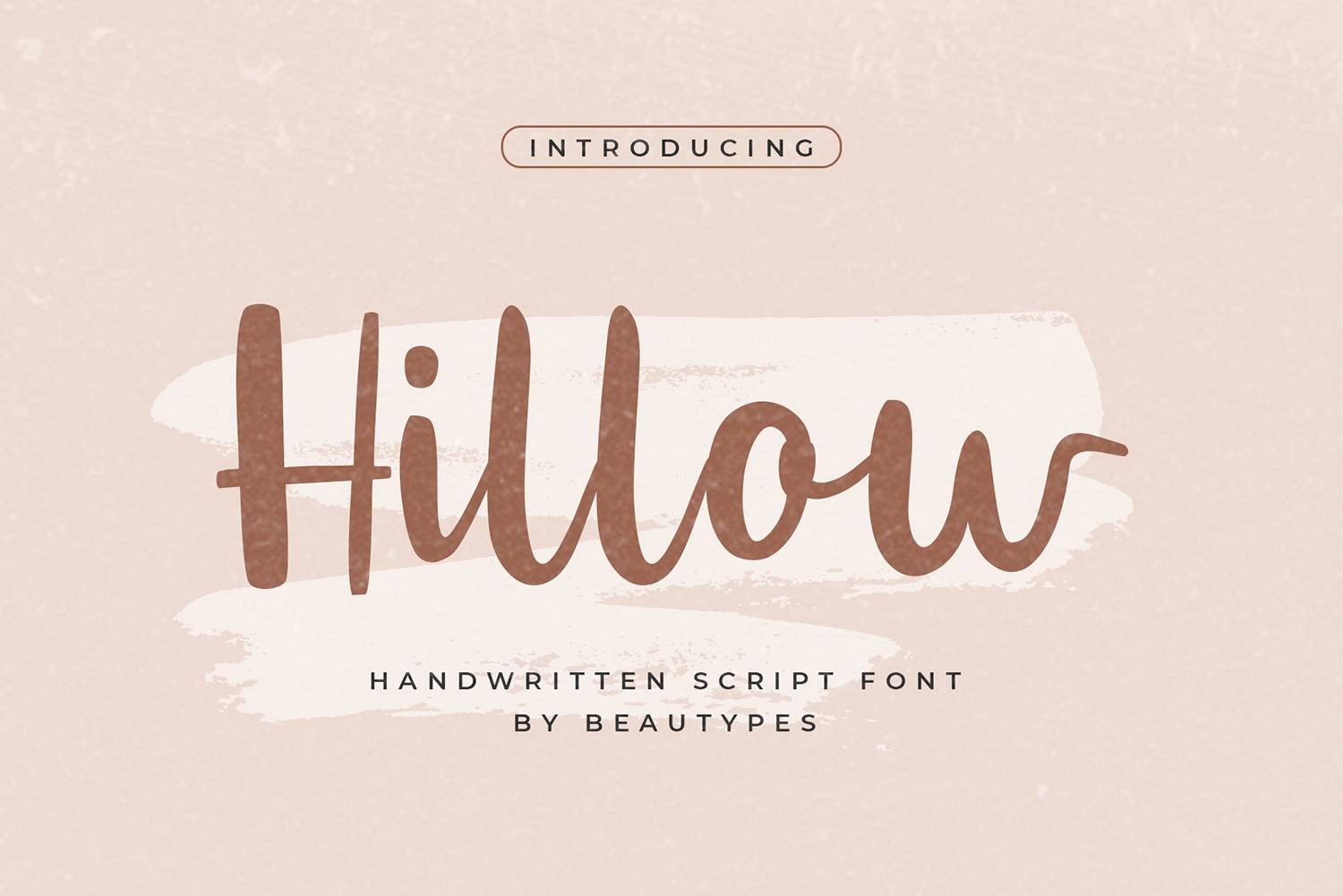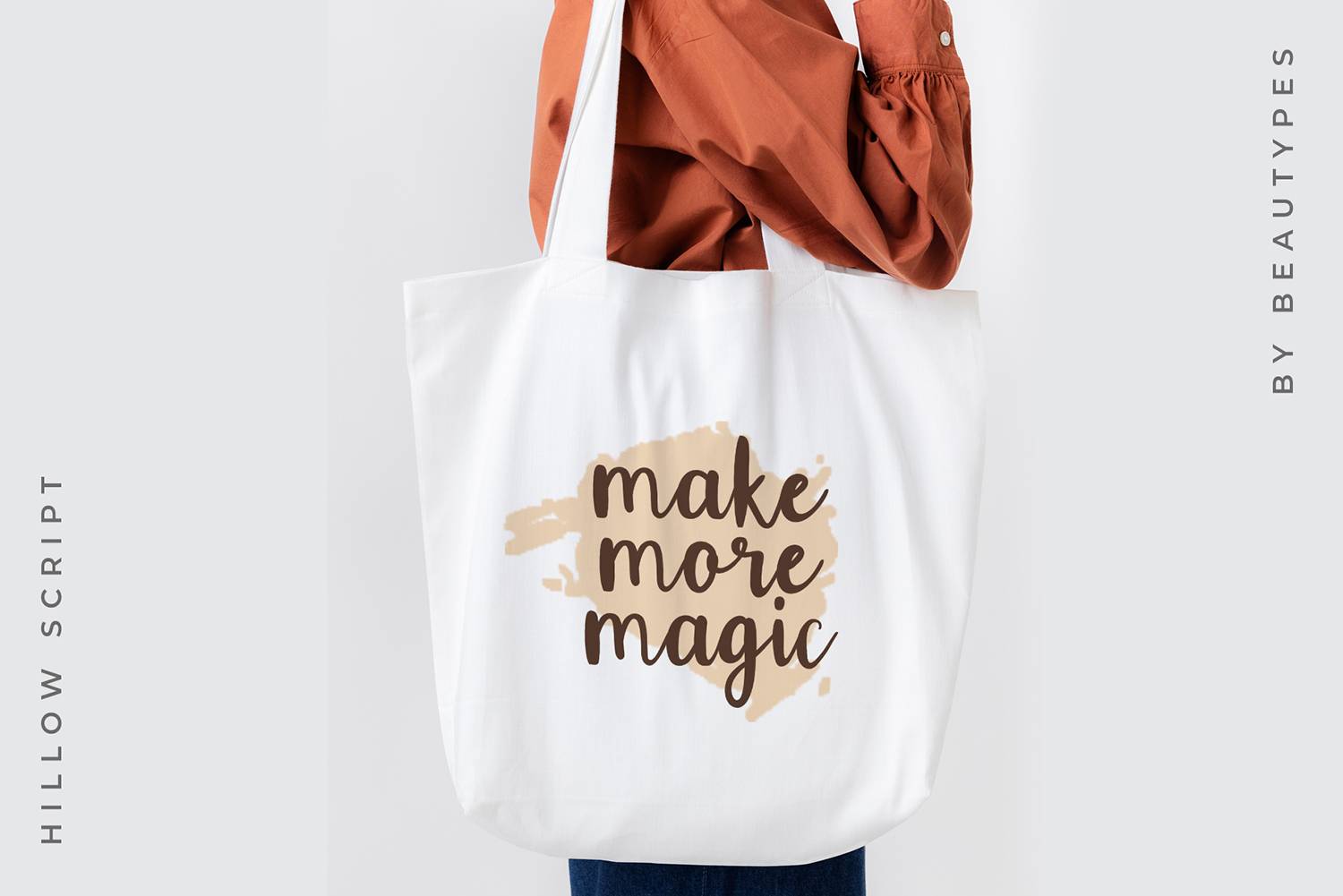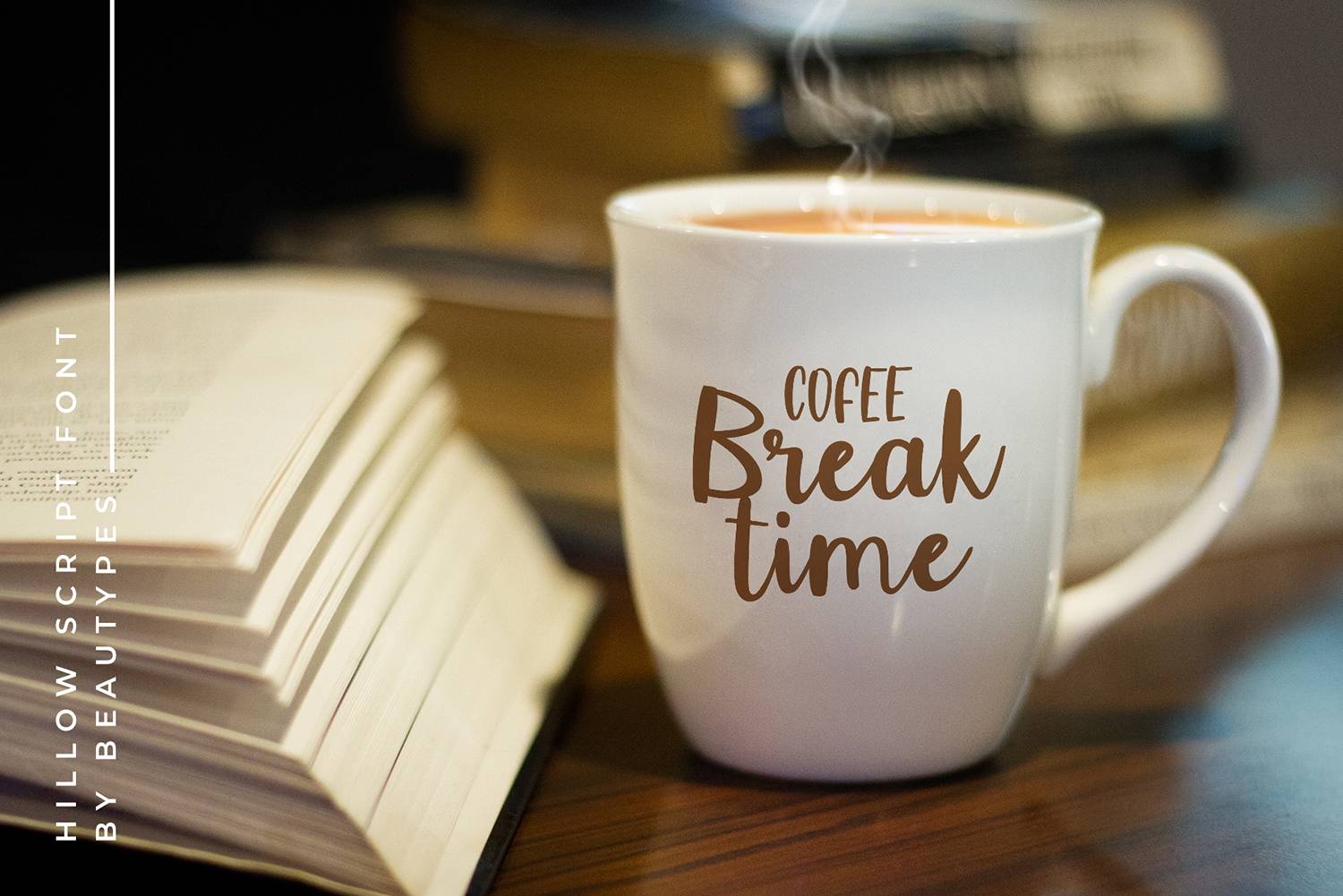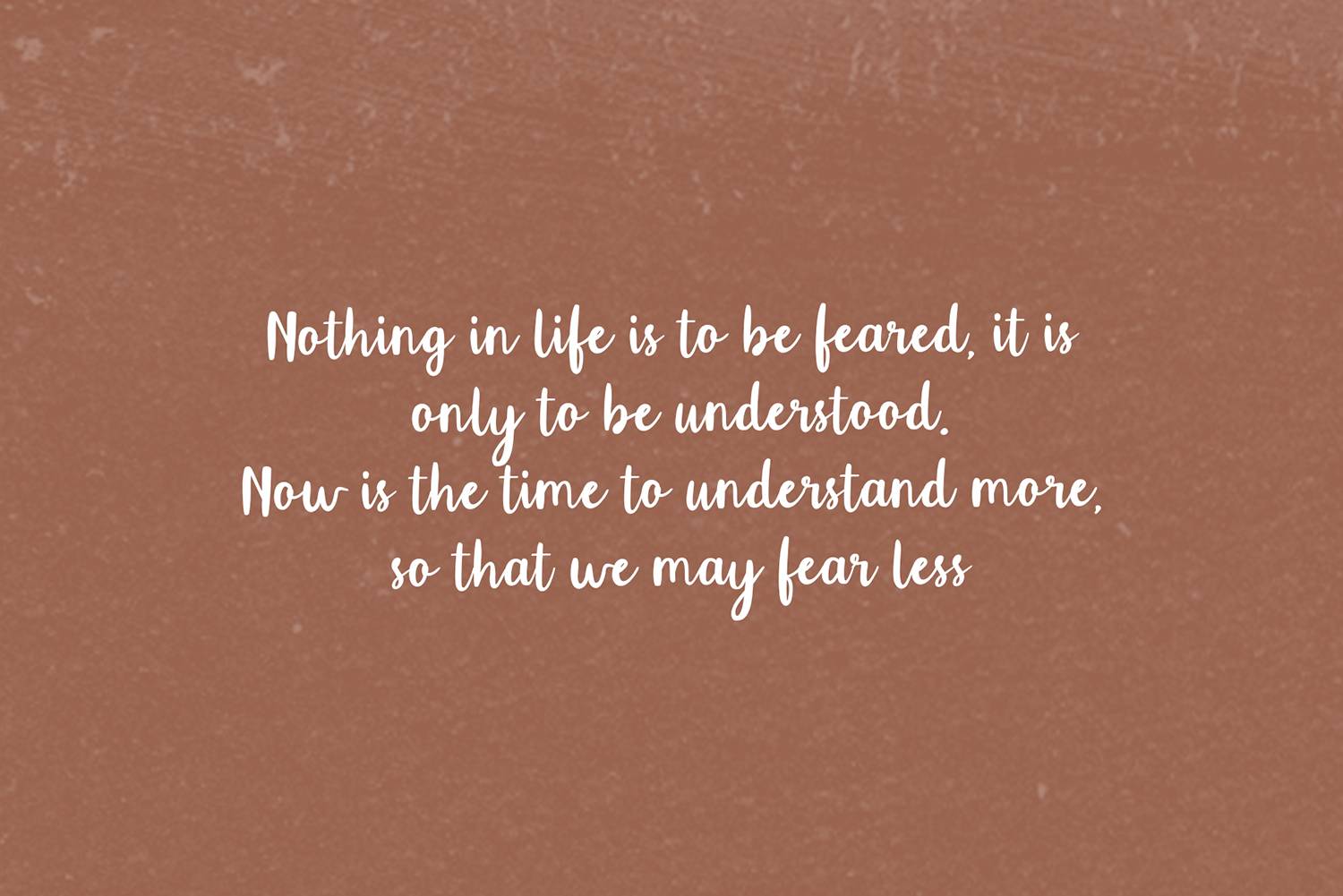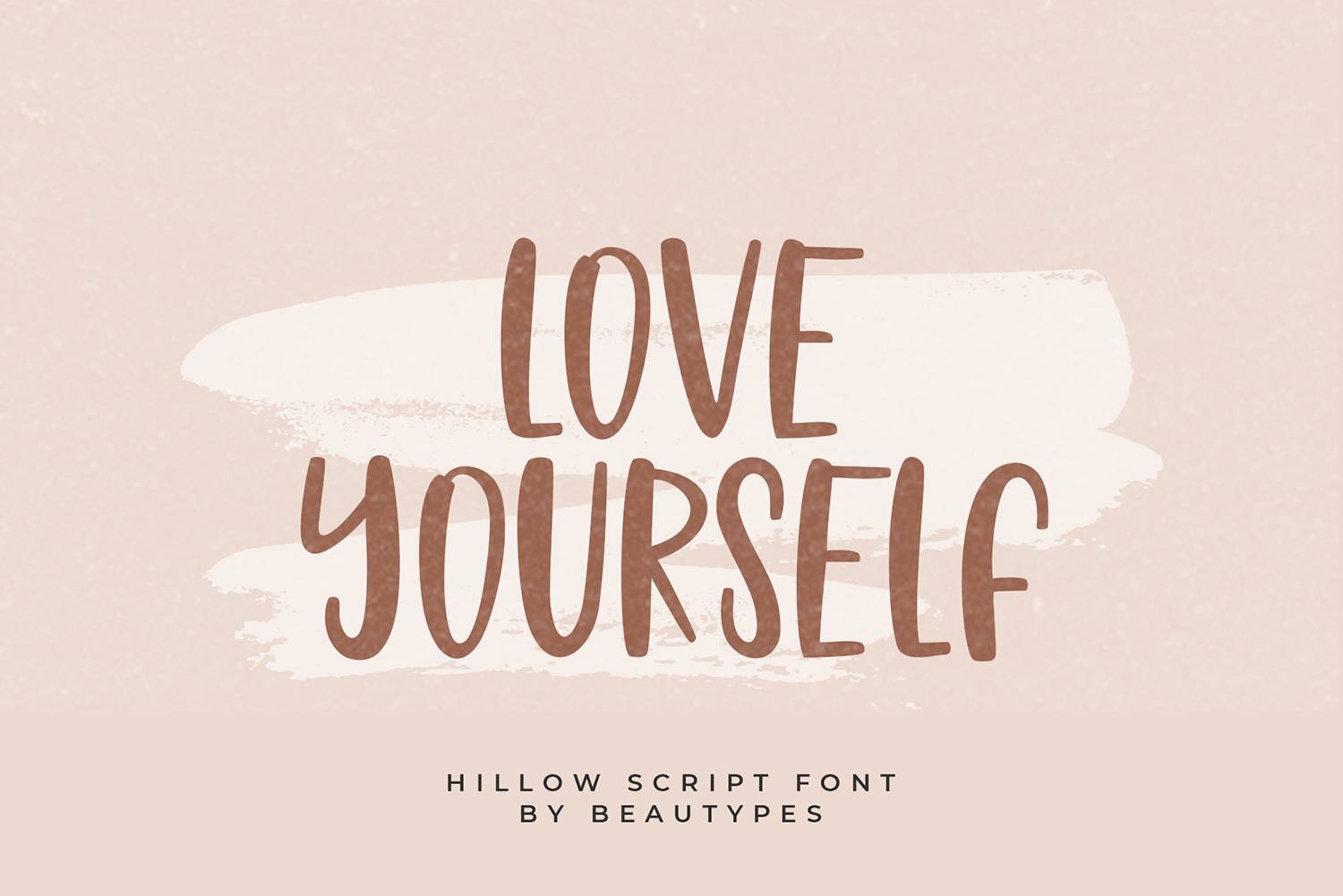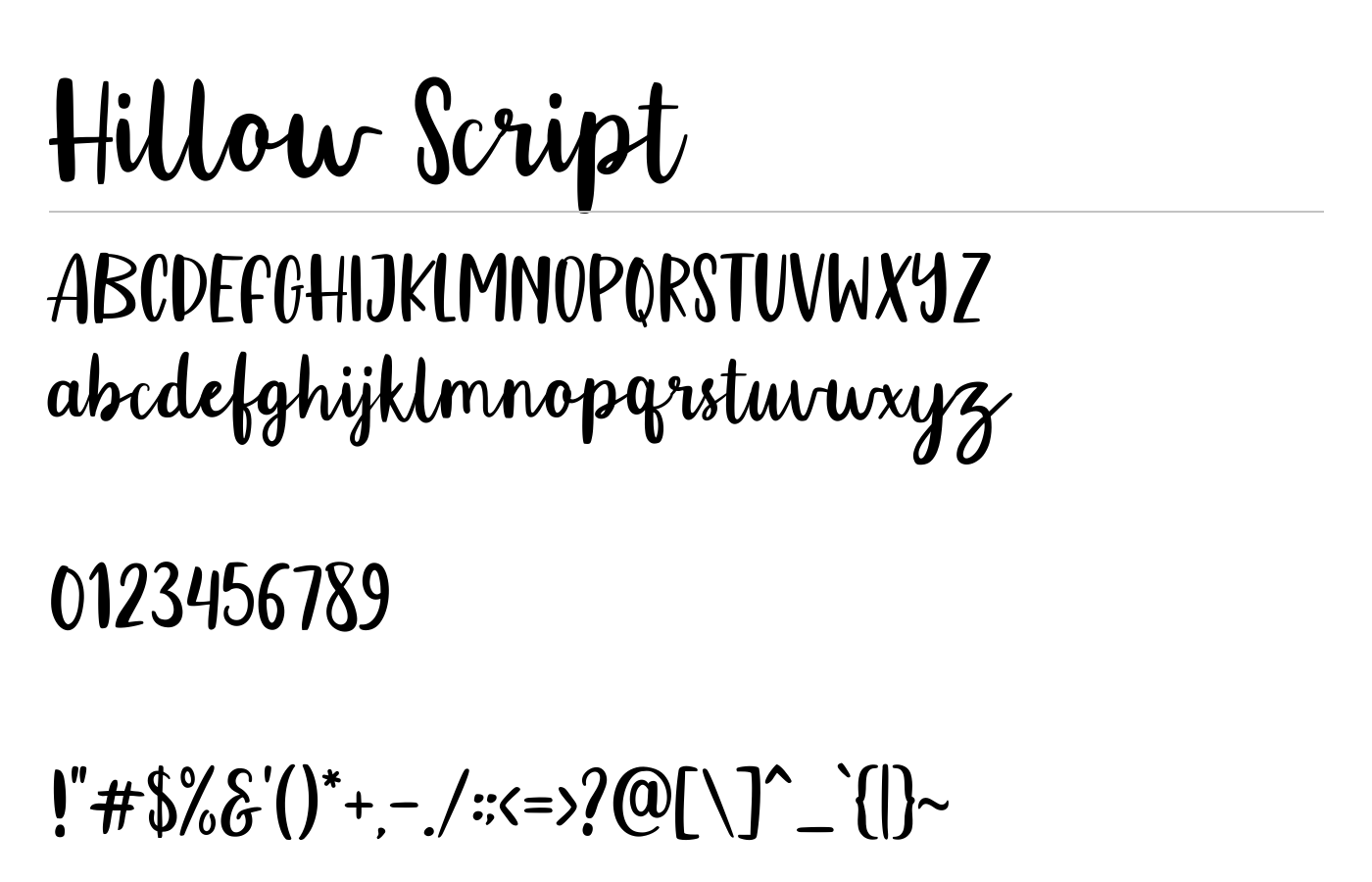
Hillow Script is a playful and casual handwritten script font with a friendly, organic feel. Its tall, slightly irregular letterforms and smooth, consistent strokes create an inviting and approachable personality perfect for lifestyle brands, invitations, and creative projects that seek warmth and personality. This font works great for headlines and logos where a personal touch is desired while remaining easily readable.
Hillow Script Font
About Hillow Script Font